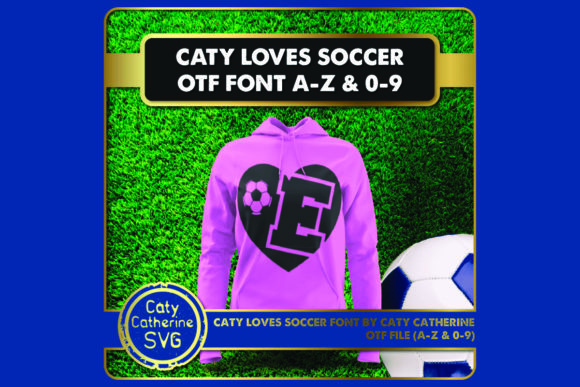
Step onto the field of creativity with Caty Loves Soccer Font, a remarkable decorative font that captures the vibrant spirit of the beautiful game. This font is a striking visual expression of passion, combining the dynamic energy of soccer with the elegance of typography.
With each character, Caty Loves Soccer Font elegantly displays a soccer ball, a symbol of unity, teamwork, and global excitement. The carefully crafted design ensures that the soccer balls seamlessly blend with the letterforms, creating a harmonious balance between athleticism and artistry.
Immerse yourself in the world of soccer with this captivating font. Whether you're a passionate fan, an aspiring athlete, or a creative professional seeking inspiration, Caty Loves Soccer Font is your perfect match. Unleash your inner artist and transform any project into a dynamic celebration of the beautiful game.
Whether you're creating posters, flyers, social media graphics, or merchandise, Caty Loves Soccer Font adds an instant touch of excitement and energy. Let the power of soccer infuse your designs with a sense of movement, passion, and global connection.
Stand out from the crowd with Caty Loves Soccer Font. Its unique and expressive style will elevate your work beyond the ordinary, leaving a lasting impression on your audience. Embrace the thrill of the game and let your creativity soar with this extraordinary font.